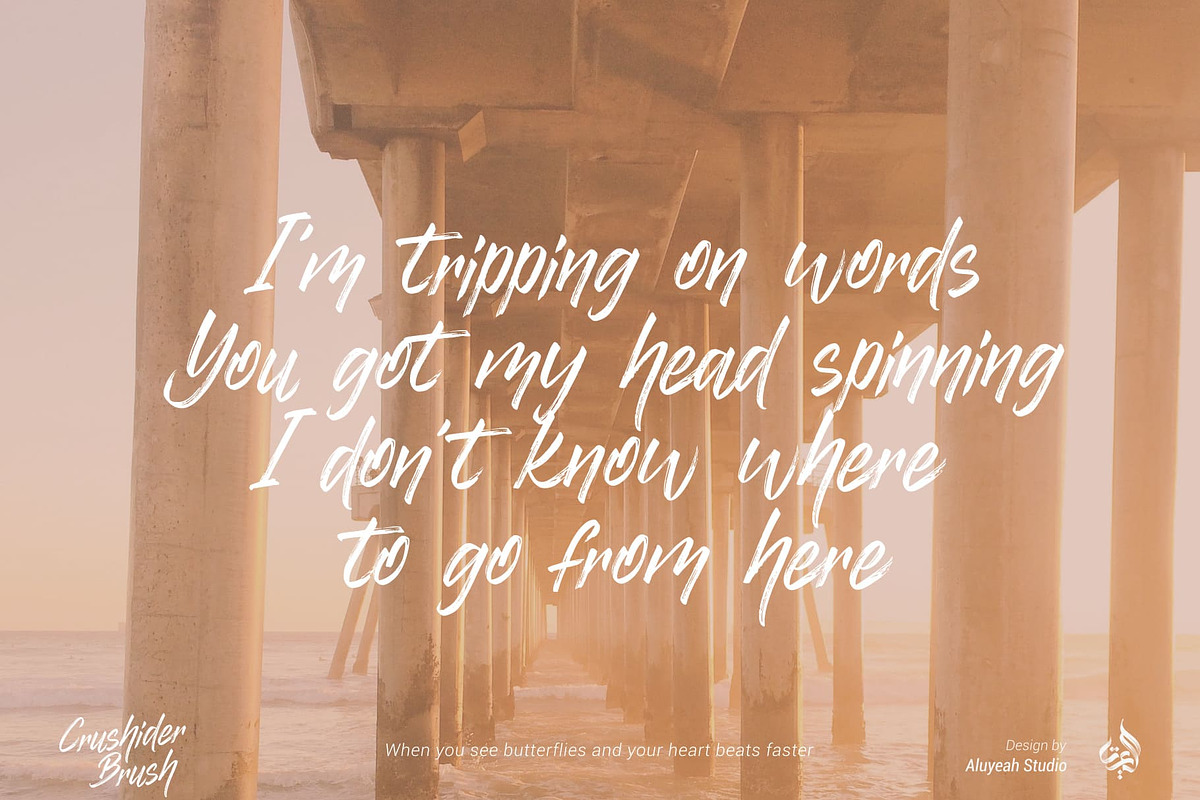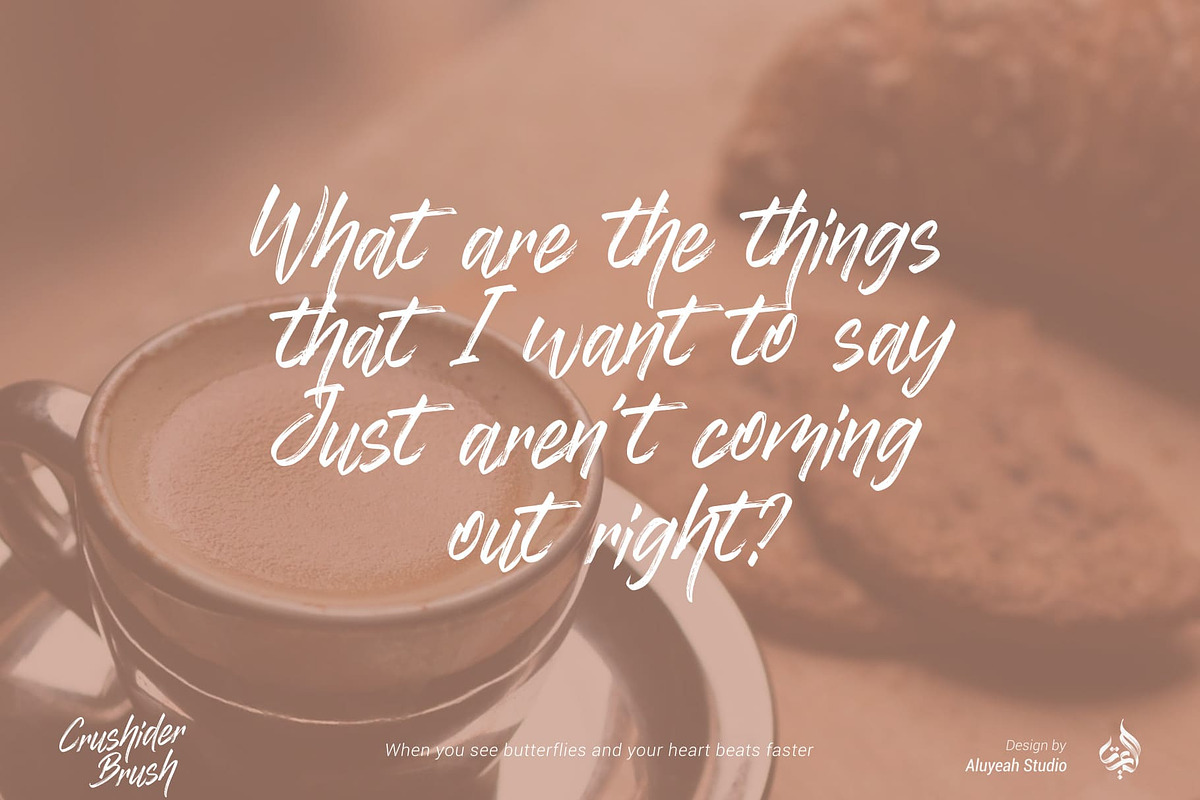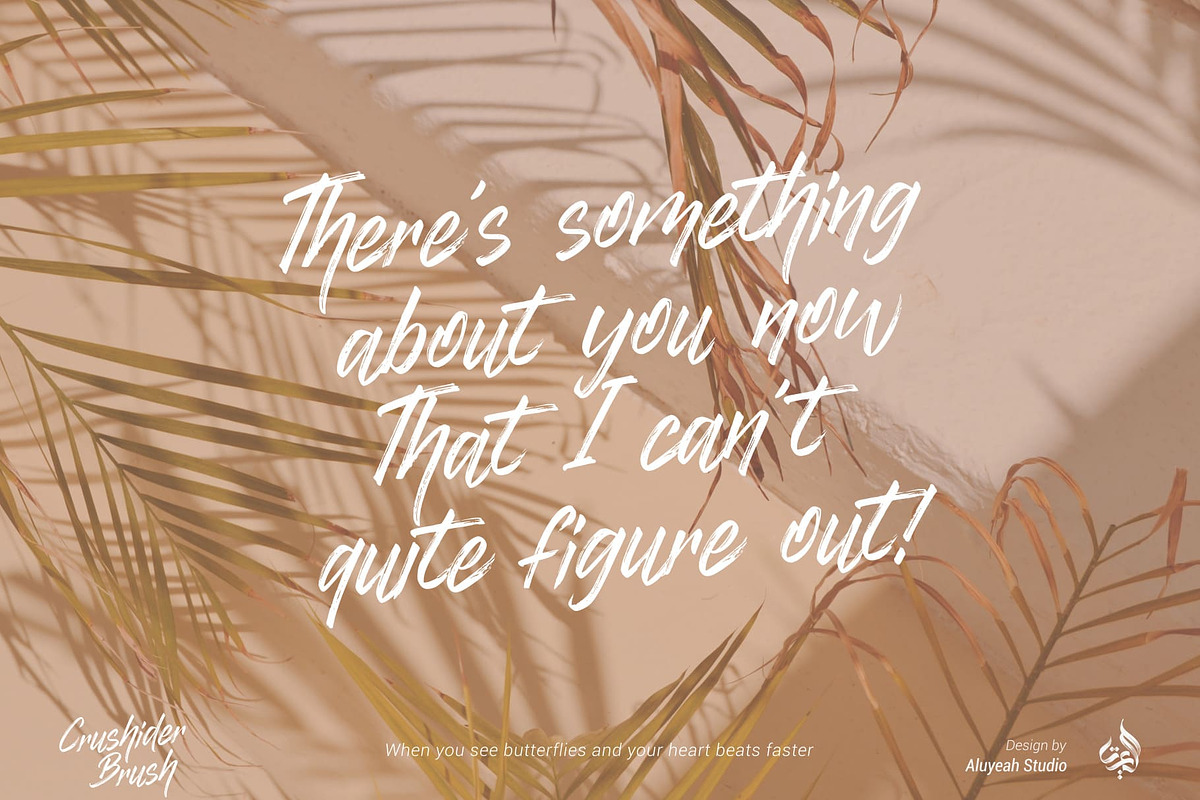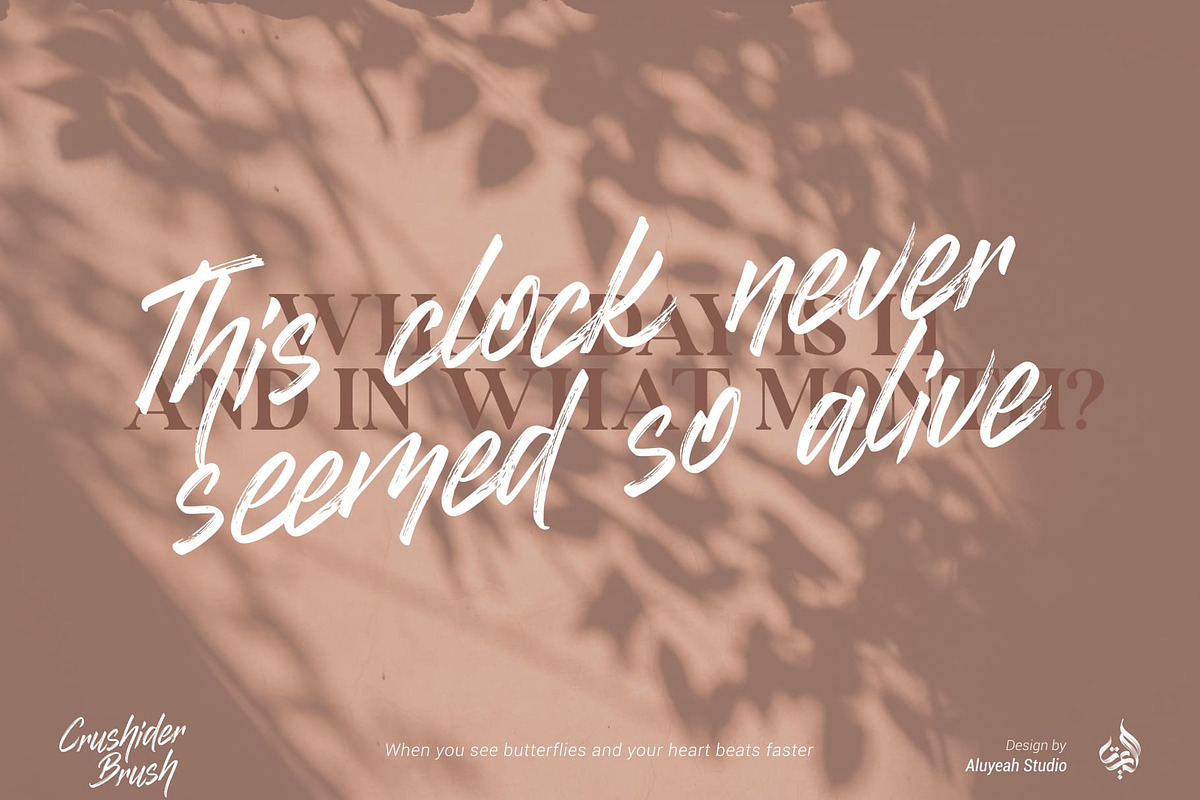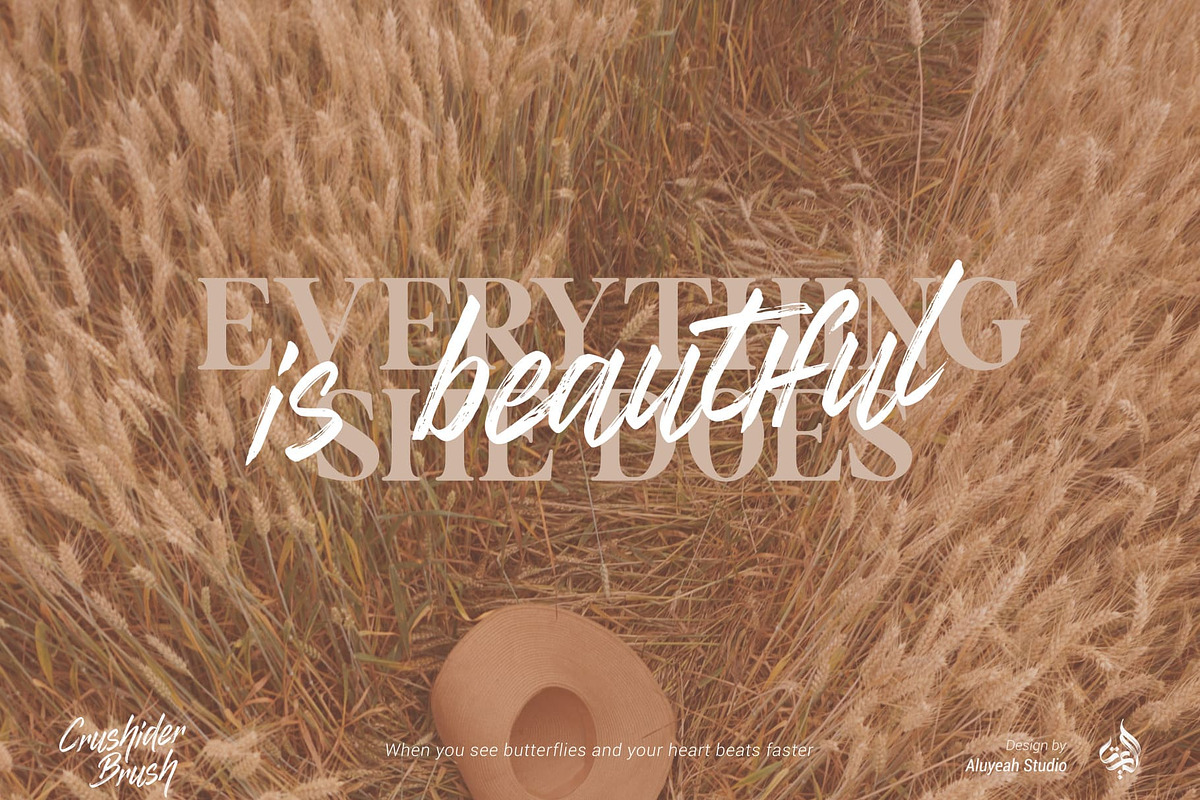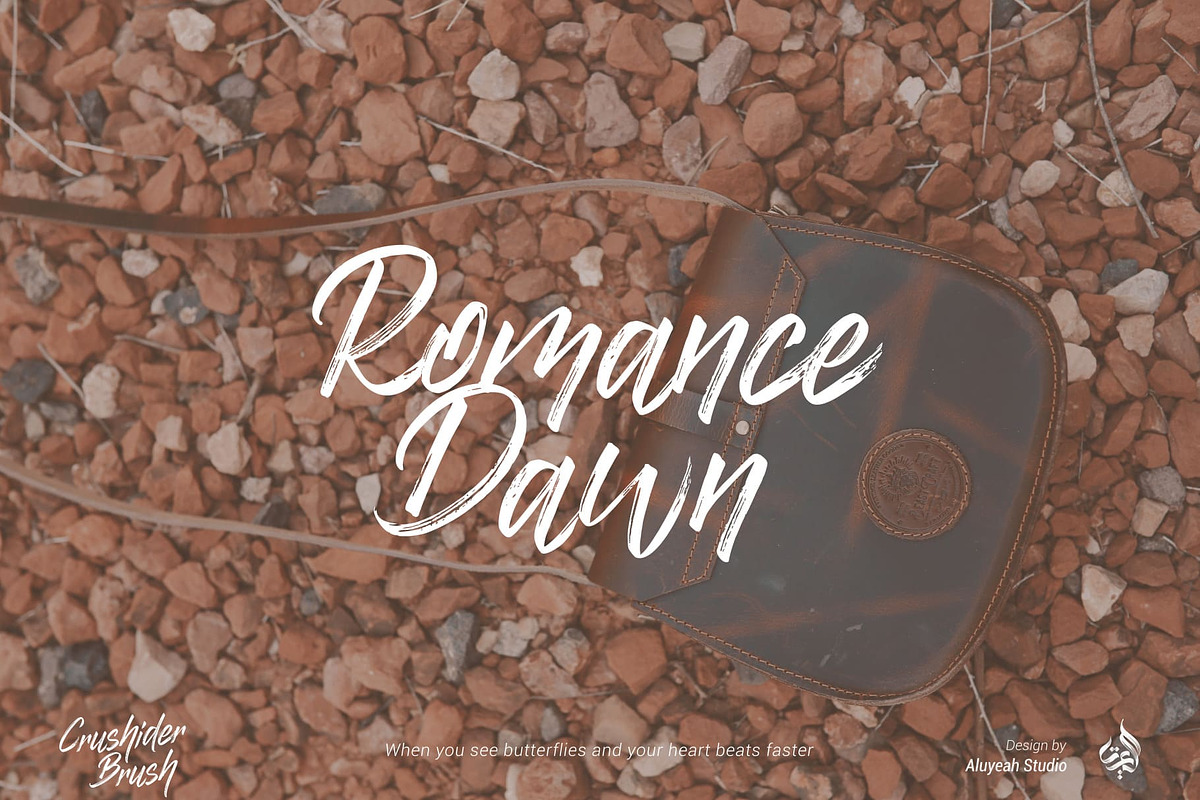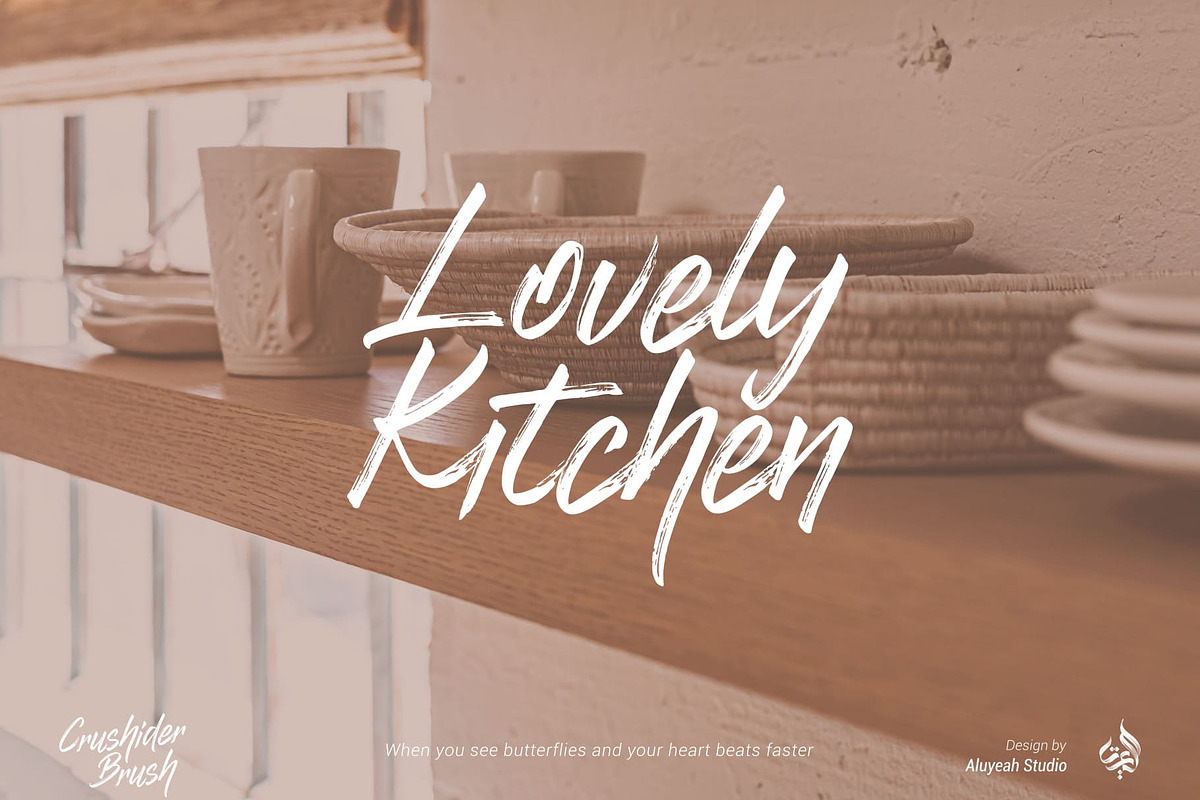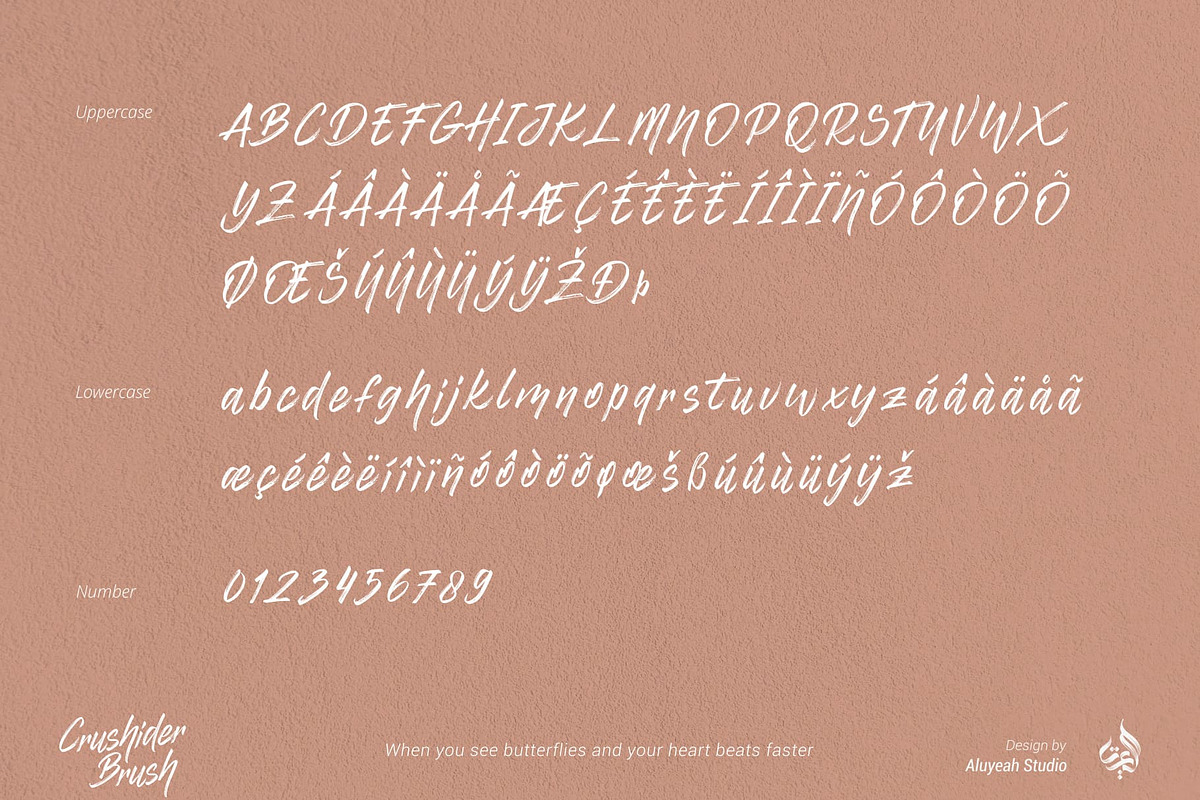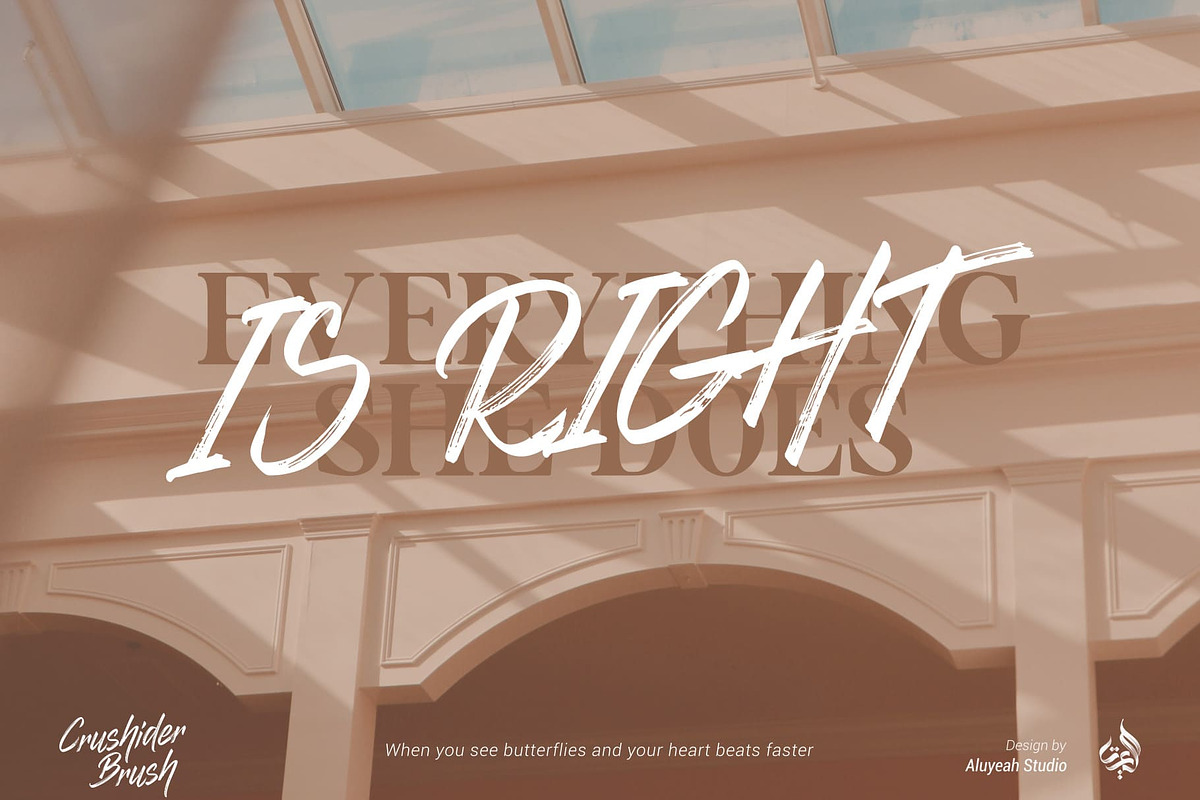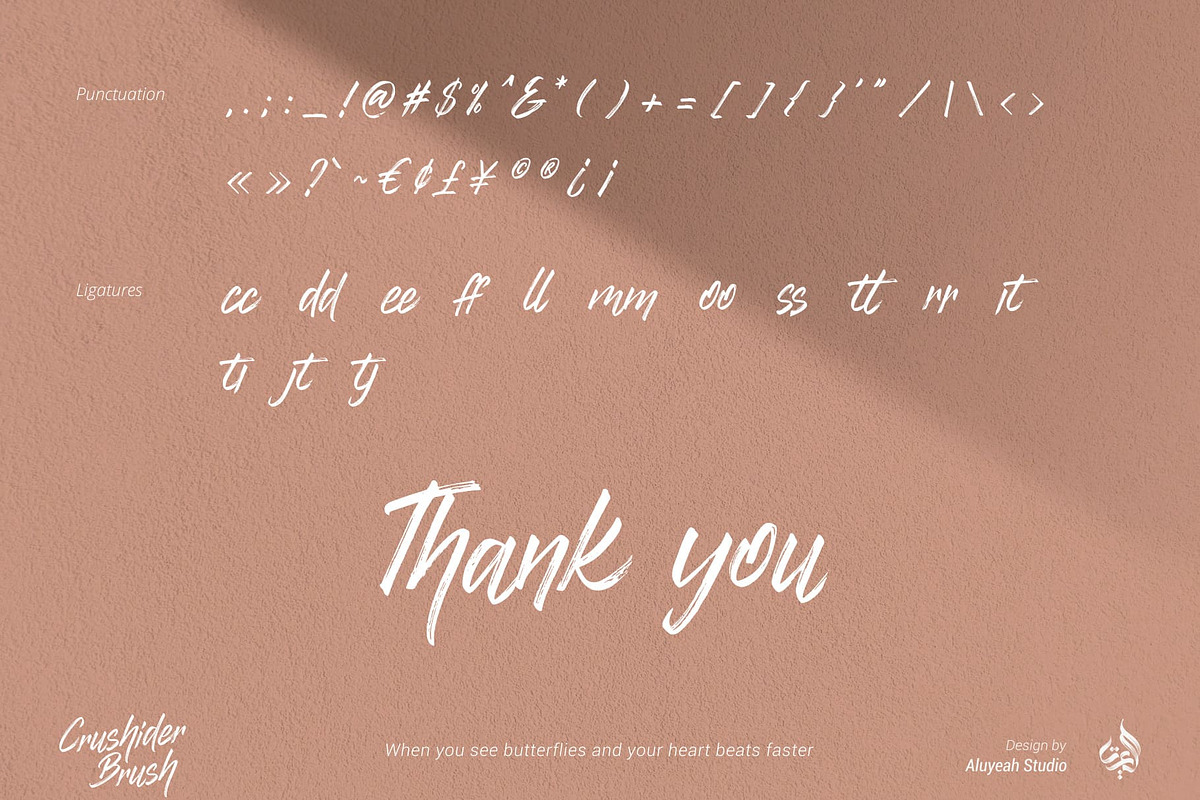
Crushider Brush
Crushider Brush, inspired by the feeling when we see your crush, and you will see a lot of butterflies and your heart rate goes up. Crush + hider, mixed feelings that are addictive but you also want to get out of the situation.
Very suitable for magazine, headline, website, ads, product package and all type of design project you have.